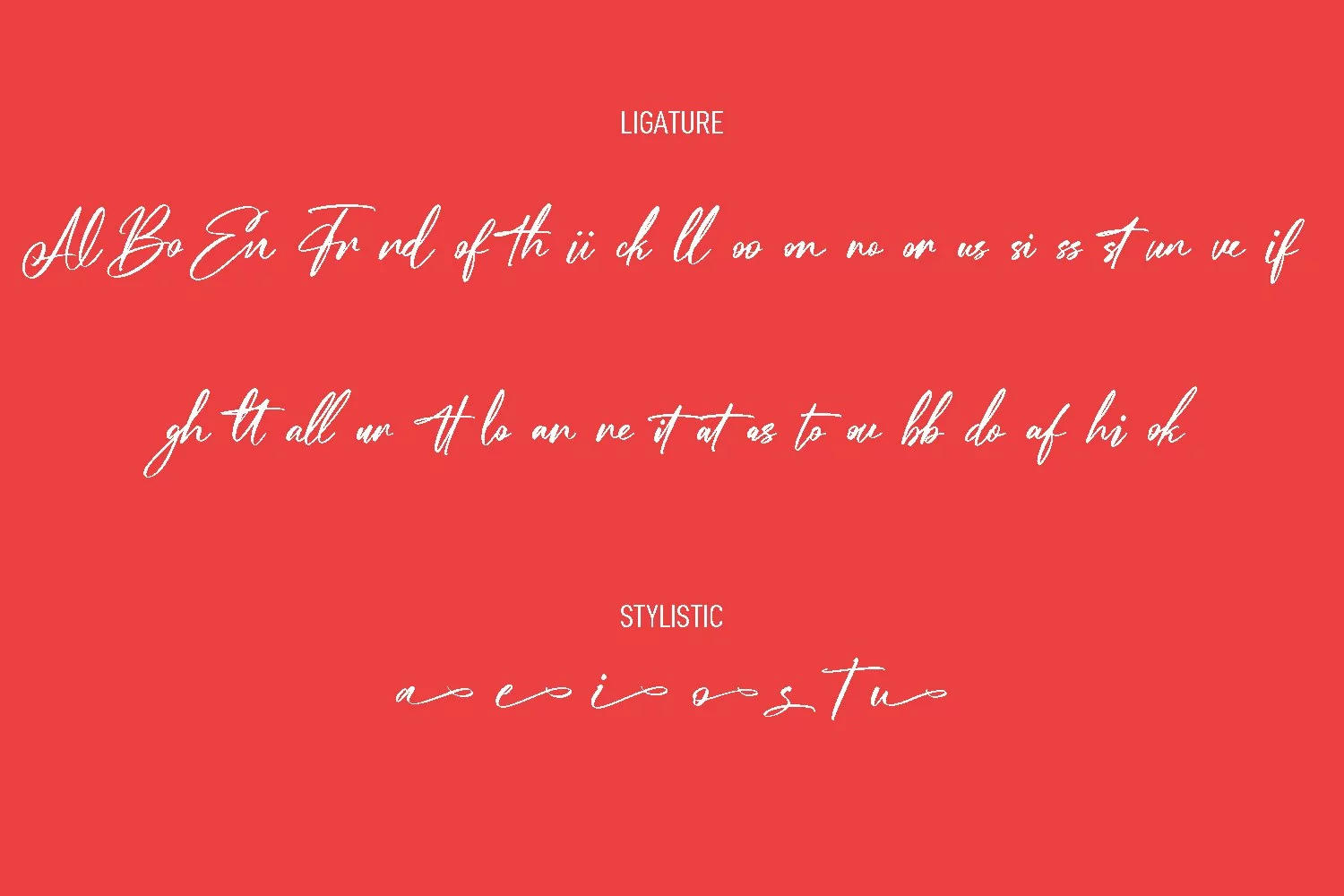
Frankfruits is a fancy handwritten script font. With regular high contrast stroke, fun character with a bit of ligatures and alternates. To give you an extra creative work. Frankfruits font support multilingual more than 100+ language. This font is good for logo design, Social media, Movie Titles, Books Titles, a short text even a long text letter and good for your secondary text font with sans or serif. Make a stunning work with Frankfruits font.
Frankfruits